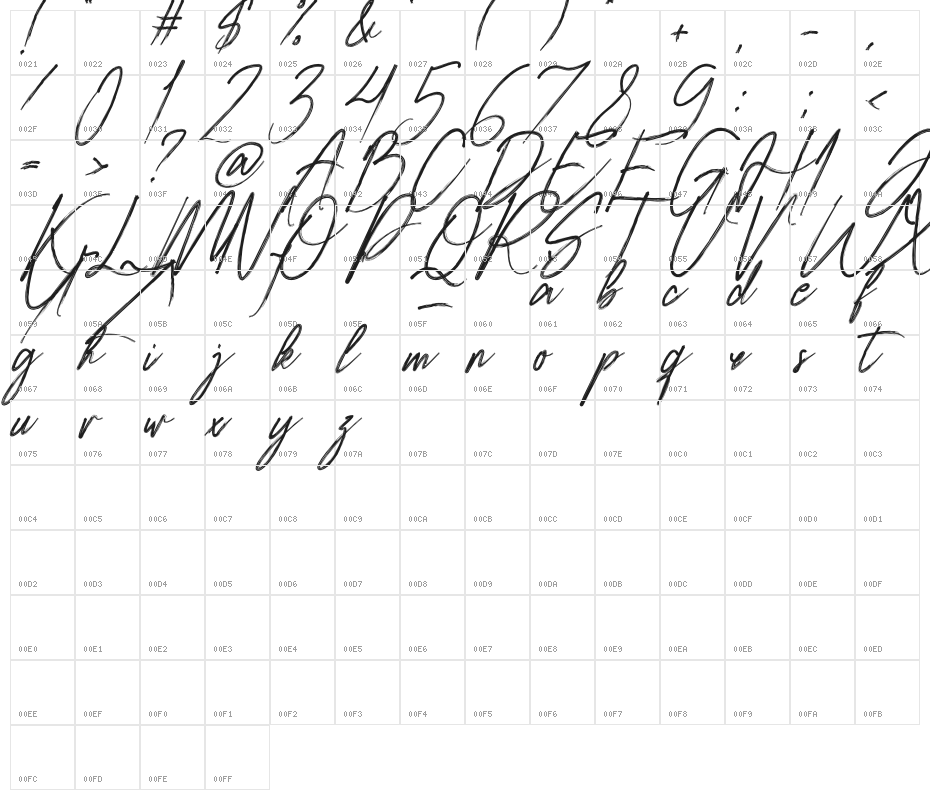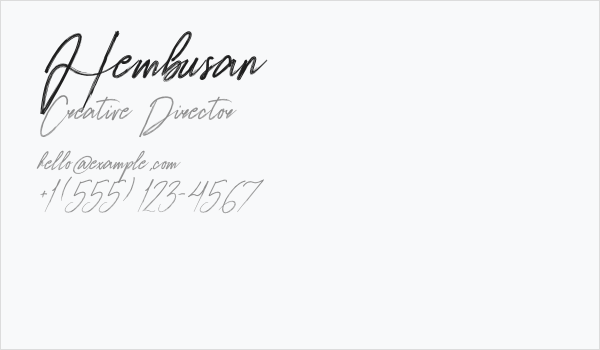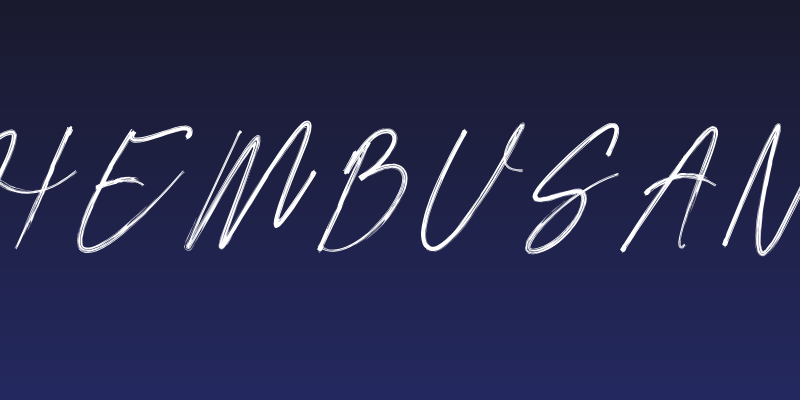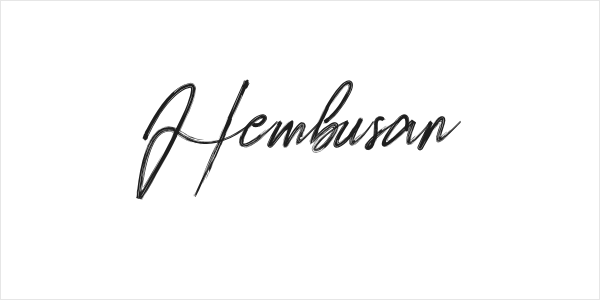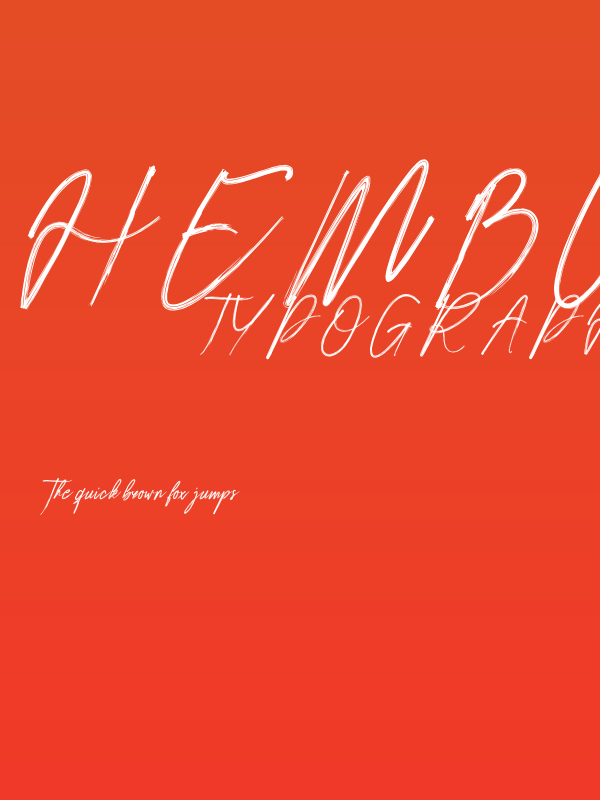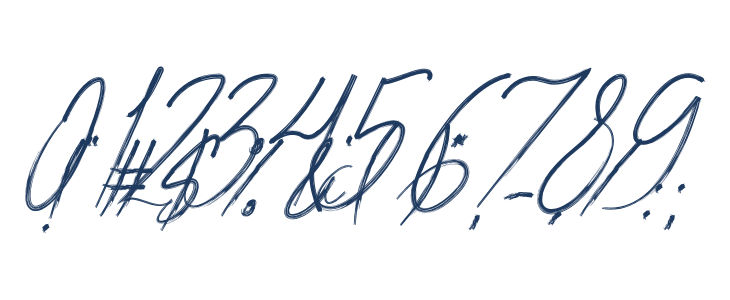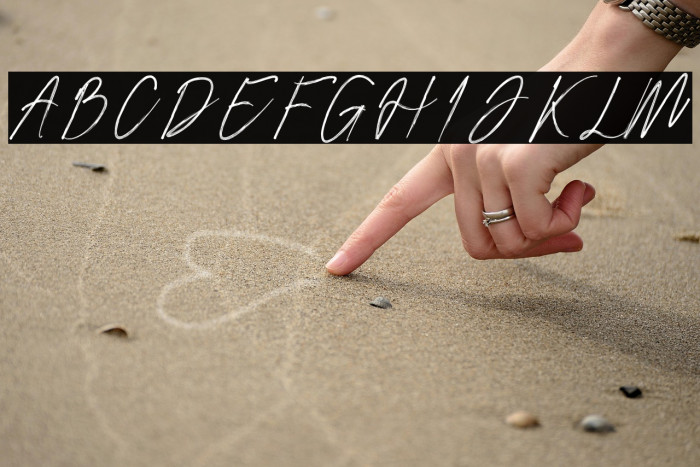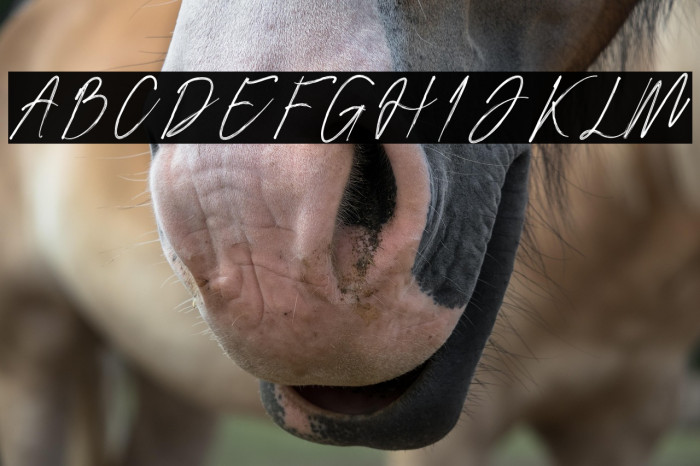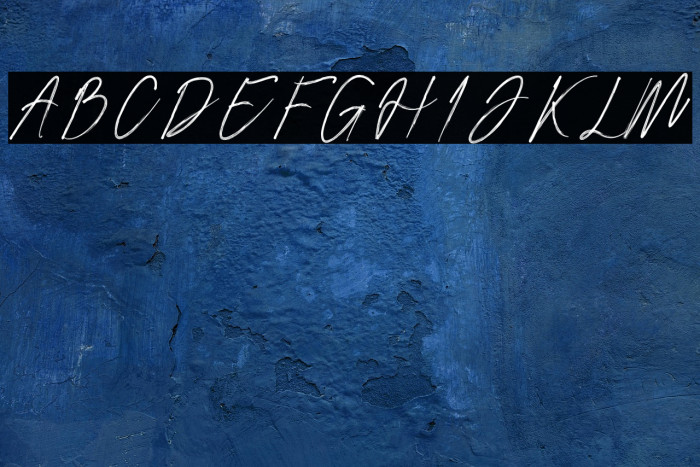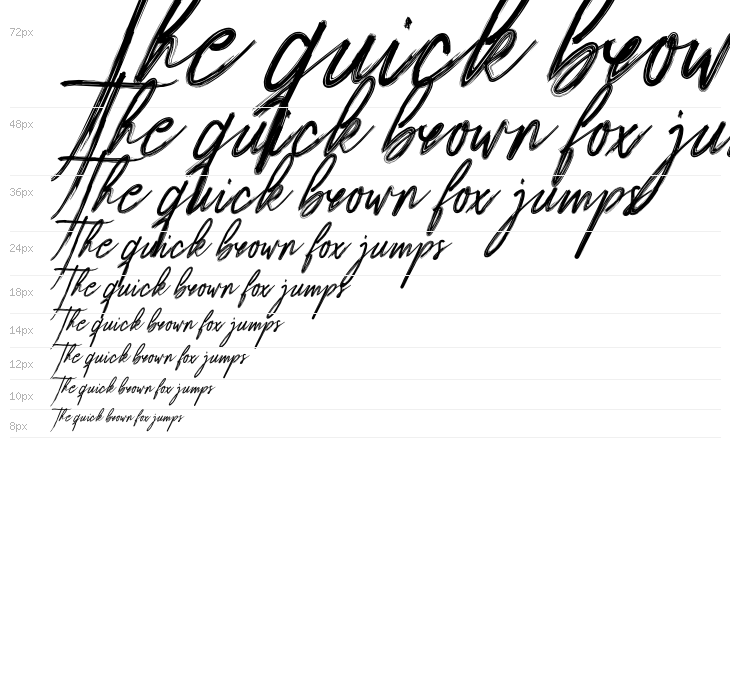
Hembusan Font
Hembusan Description
This elegant script font features a flowing, cursive style with a handwritten appearance. The uppercase letters are slender and elongated, giving a sense of sophistication and grace. The lowercase letters are more robust, with a bold and dynamic presence that adds a touch of drama. The numbers and special characters maintain the same fluidity, ensuring consistency throughout. The strokes vary in thickness, creating a medium contrast that enhances readability while maintaining an artistic flair. This font is perfect for projects that require a personal touch, such as invitations, greeting cards, or branding materials.
| Overall Style | Elegant, Artistic |
| Use Case | Invitations, Greeting cards, Branding |
| Proposed Projects | Ideal for wedding invitations, personal branding, greeting cards, and artistic projects. |